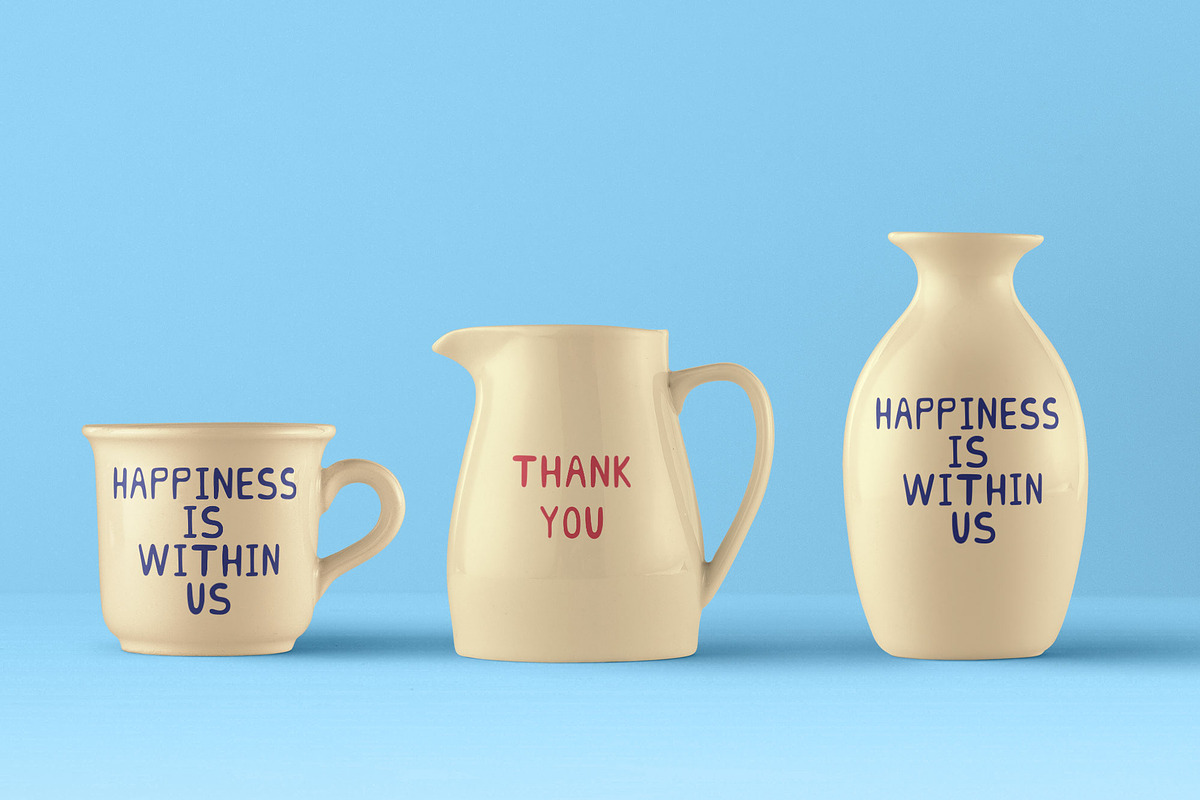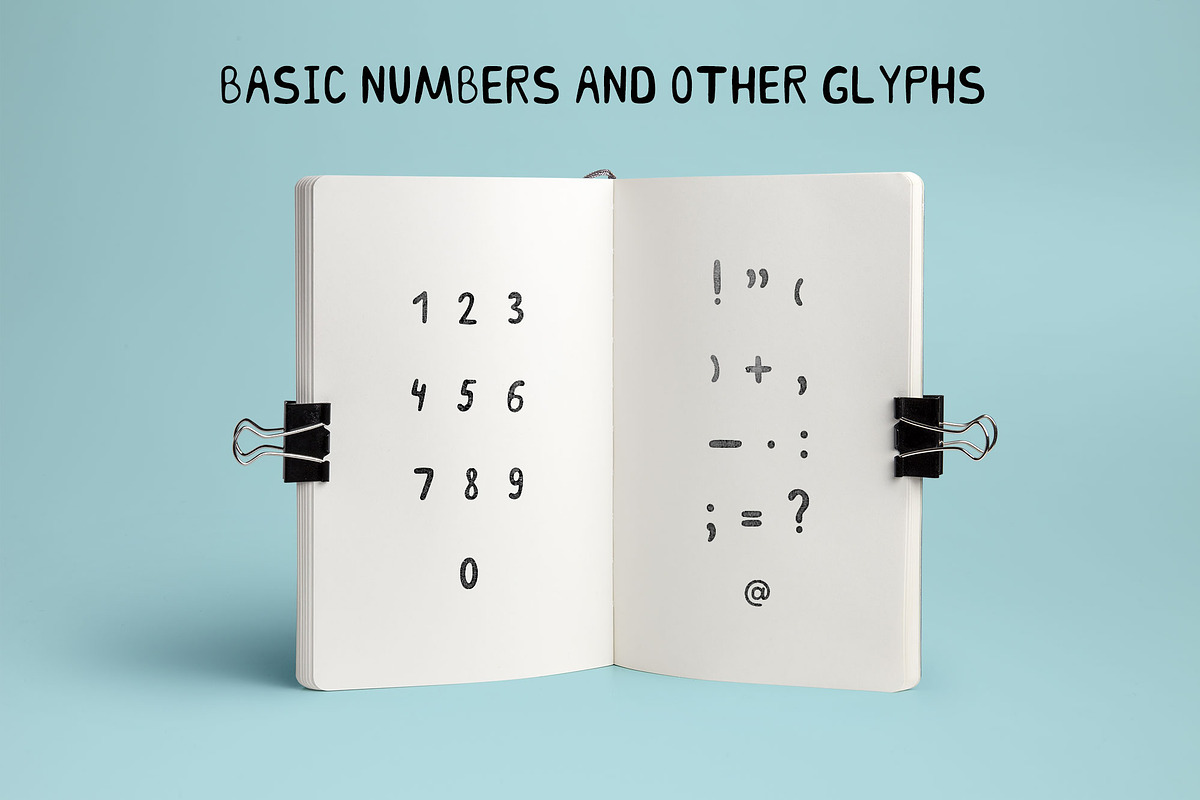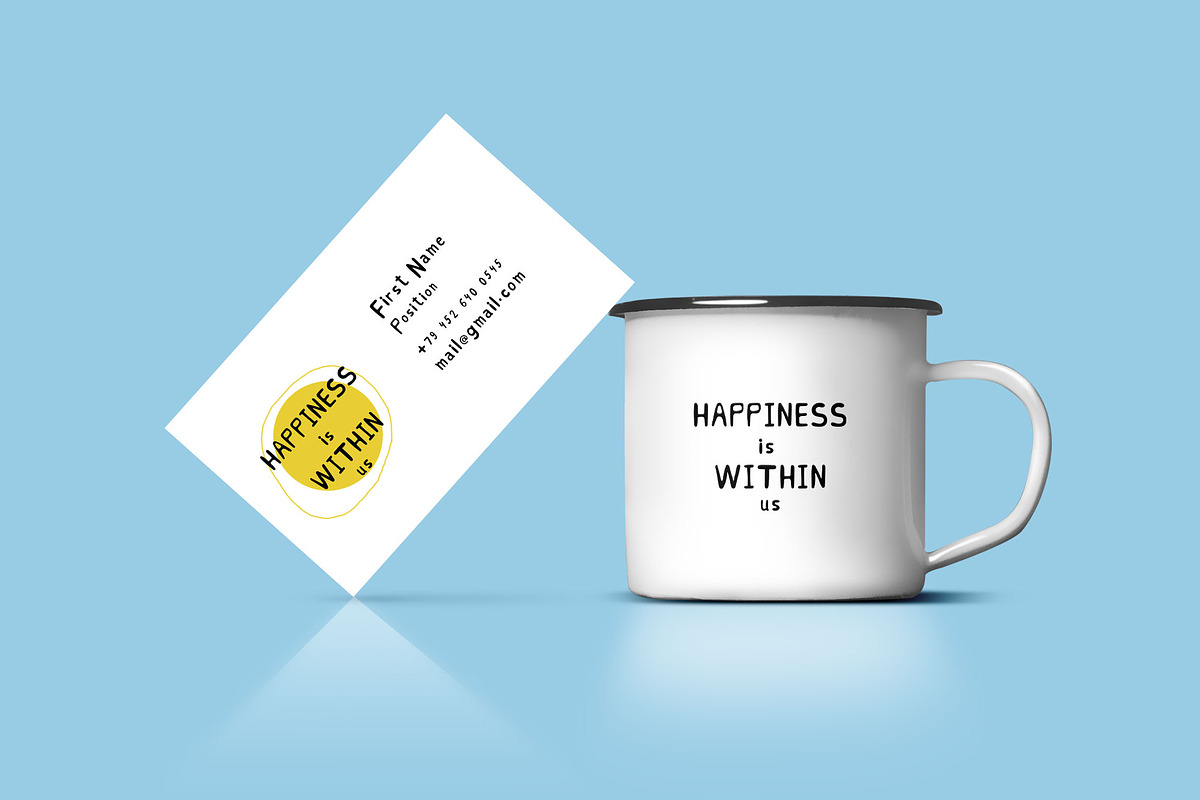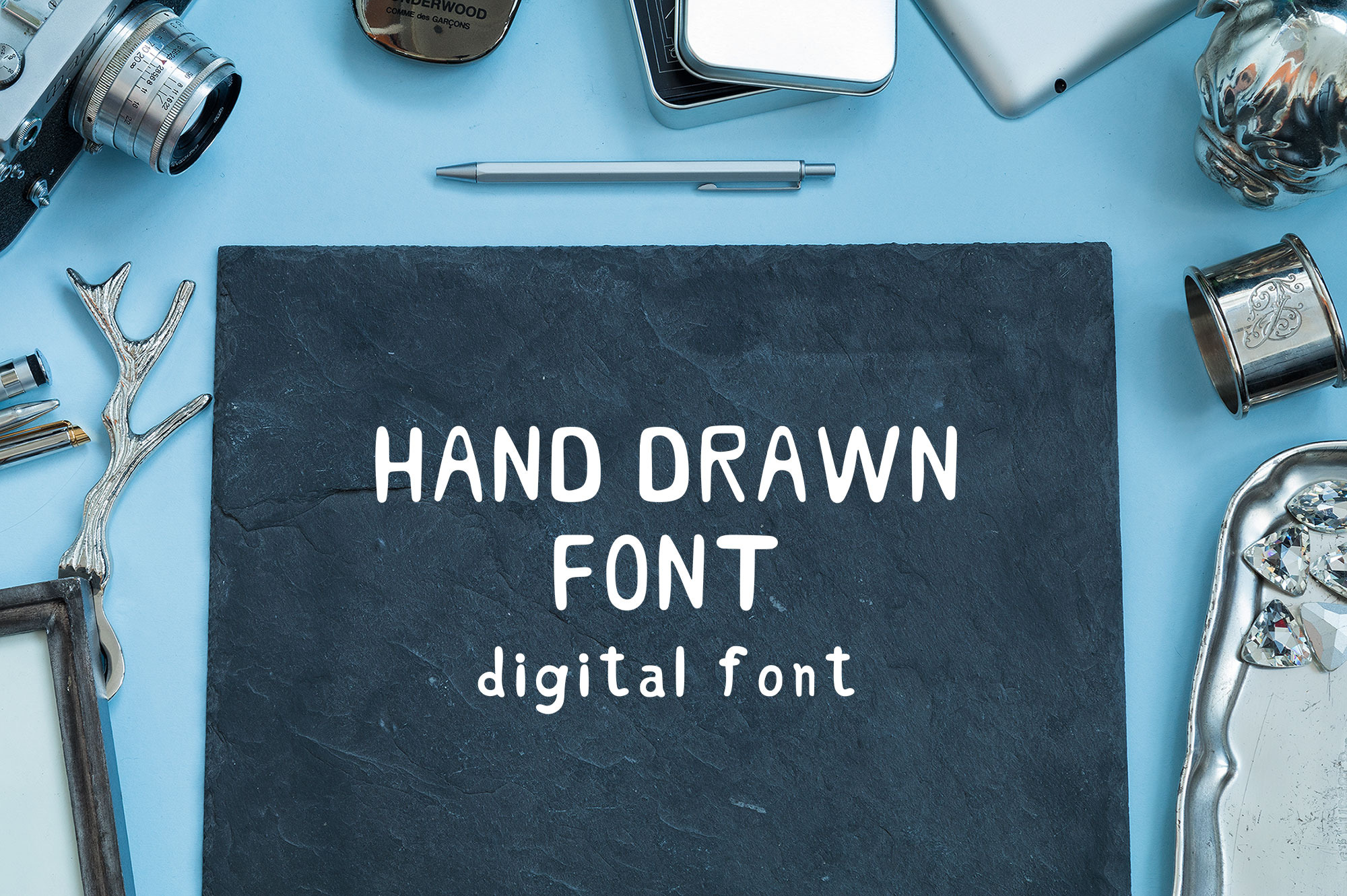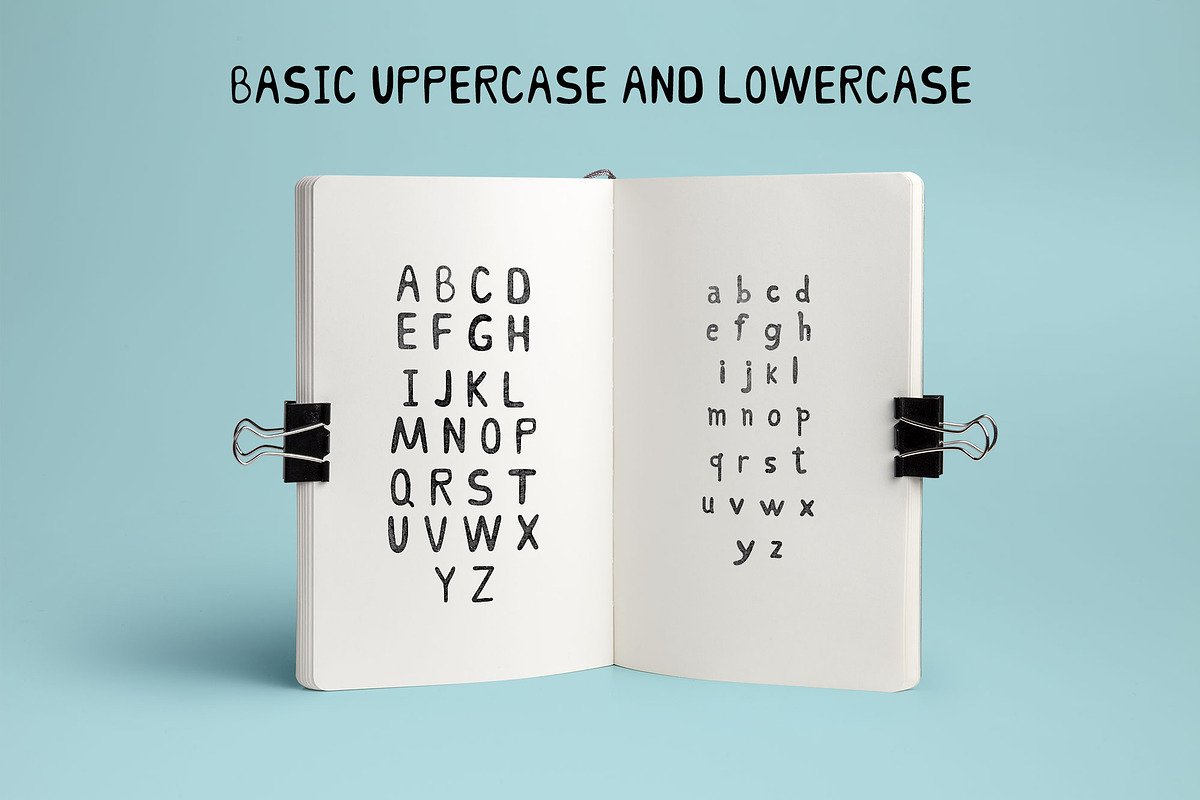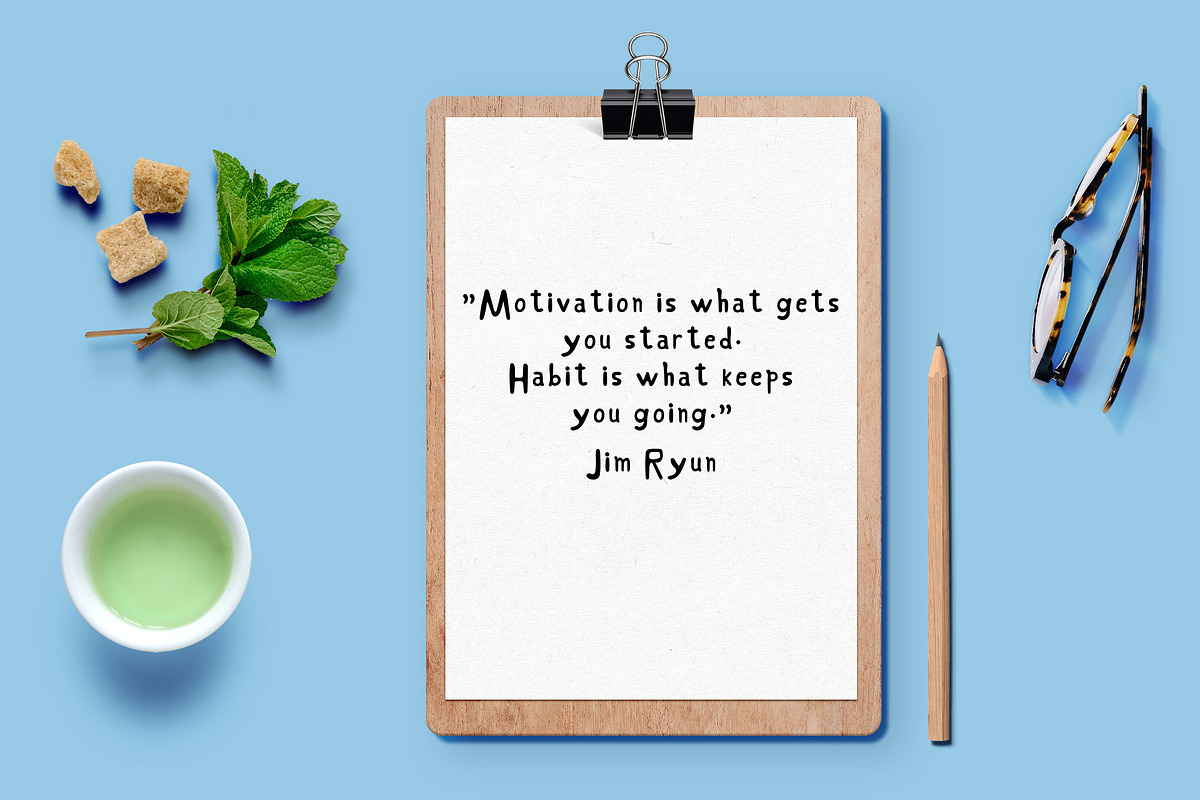
Hand Drawn Font
A hand-drawn font is ideal for decorating digital and printed products. For example: headlines, logos, t-shirts, packaging, posters, cards and much more.
75 characters including: basic uppercase letters, basic lowercase letters, numbers and minimal glyphs.